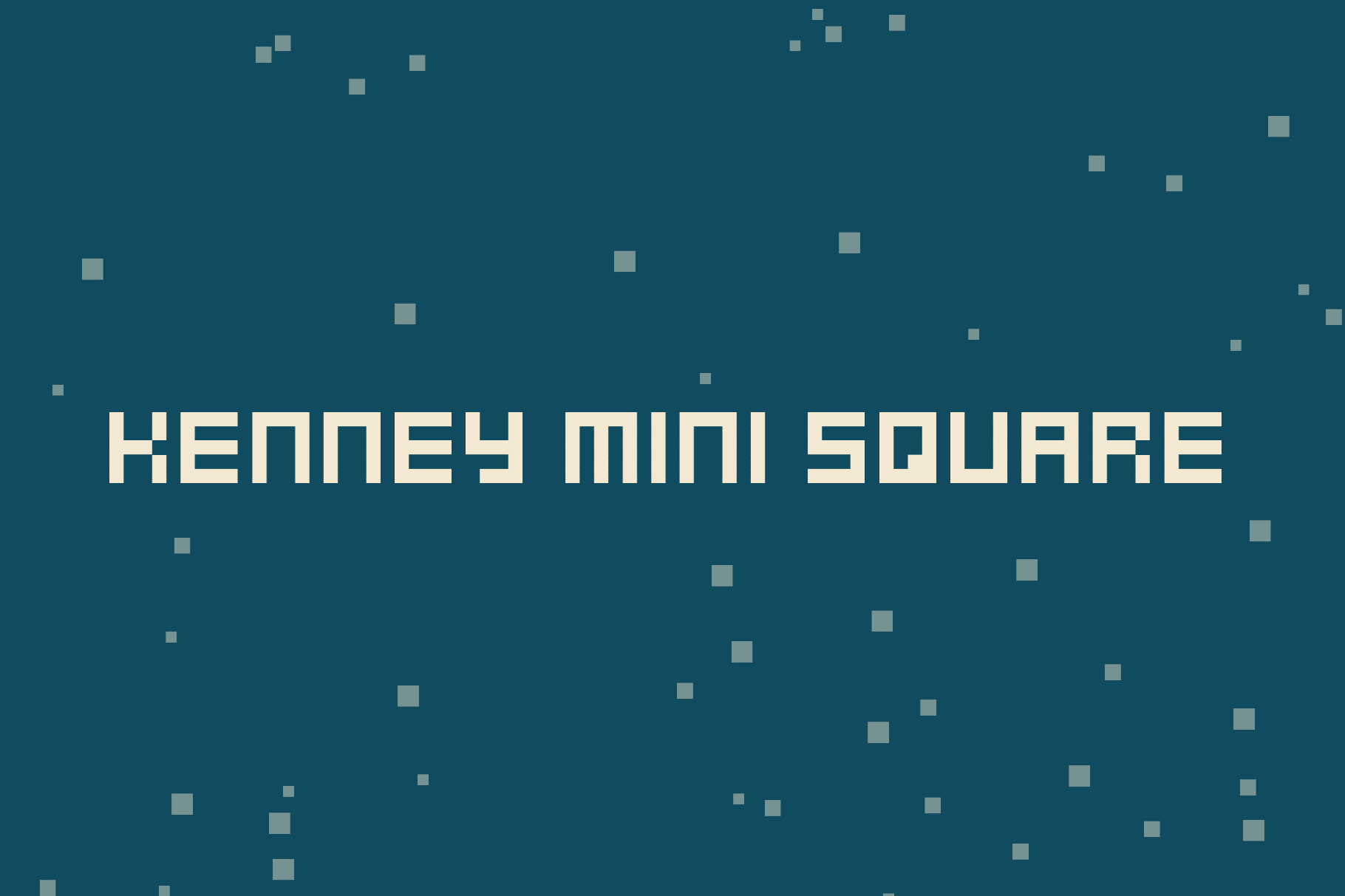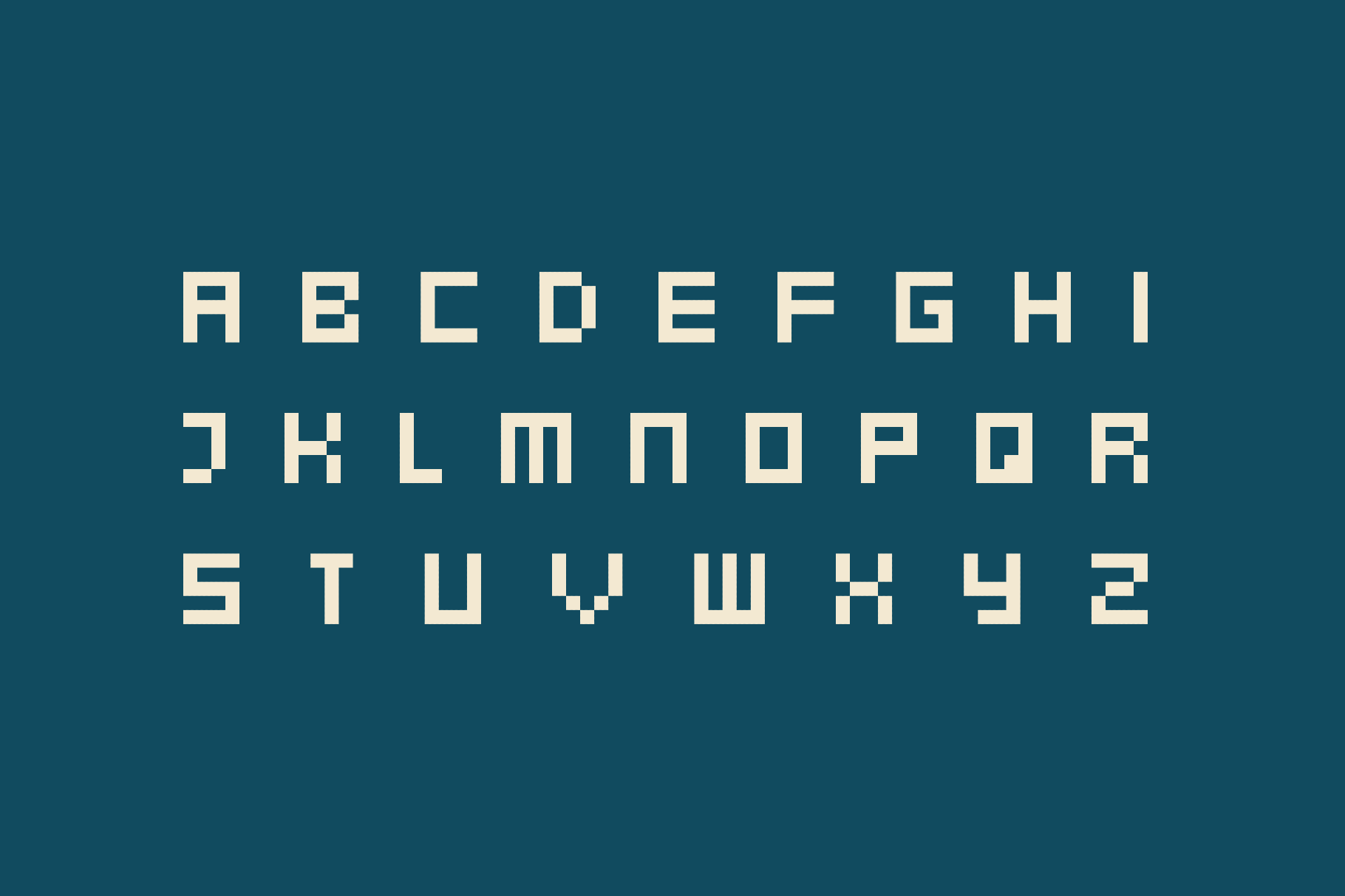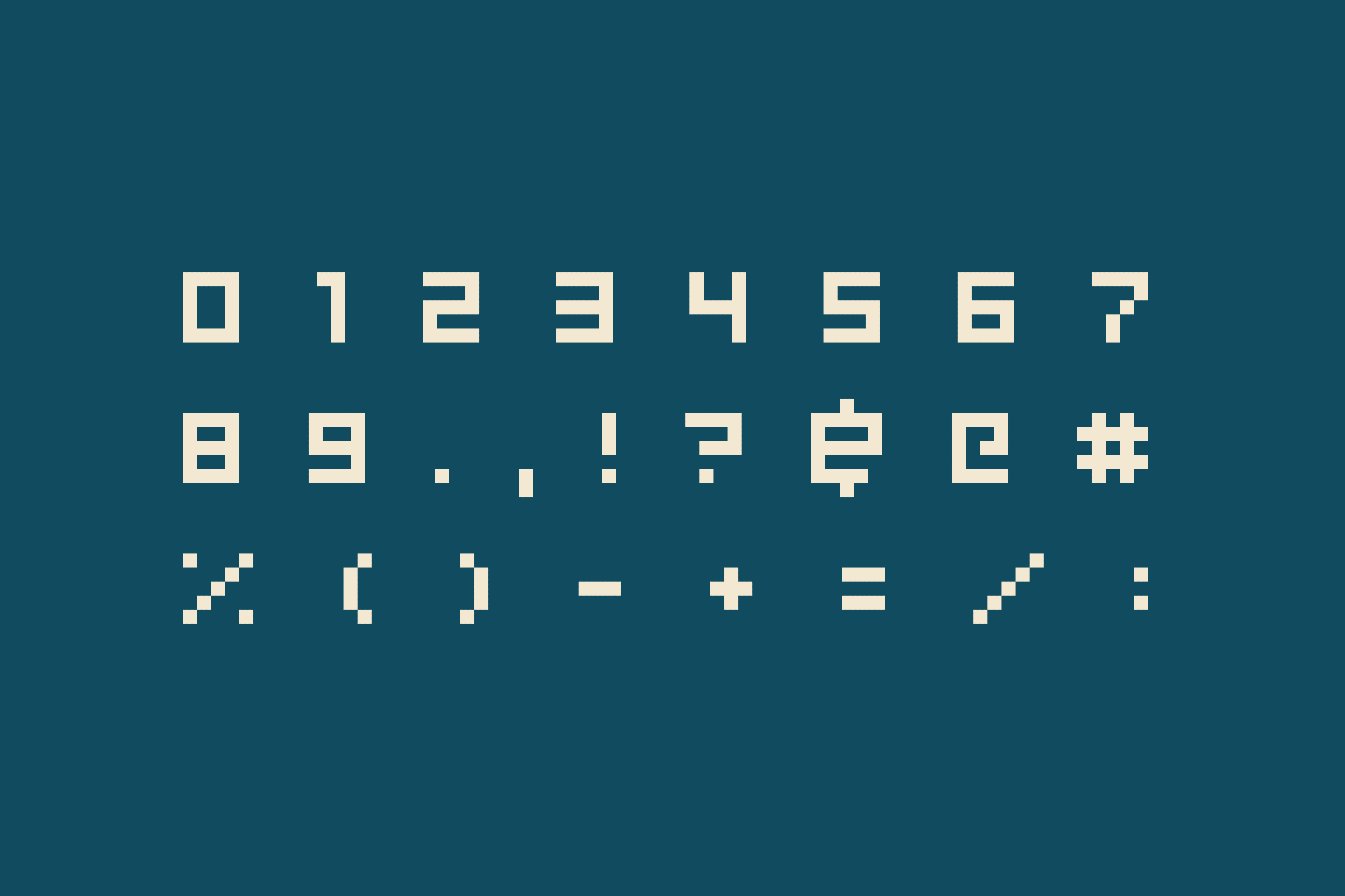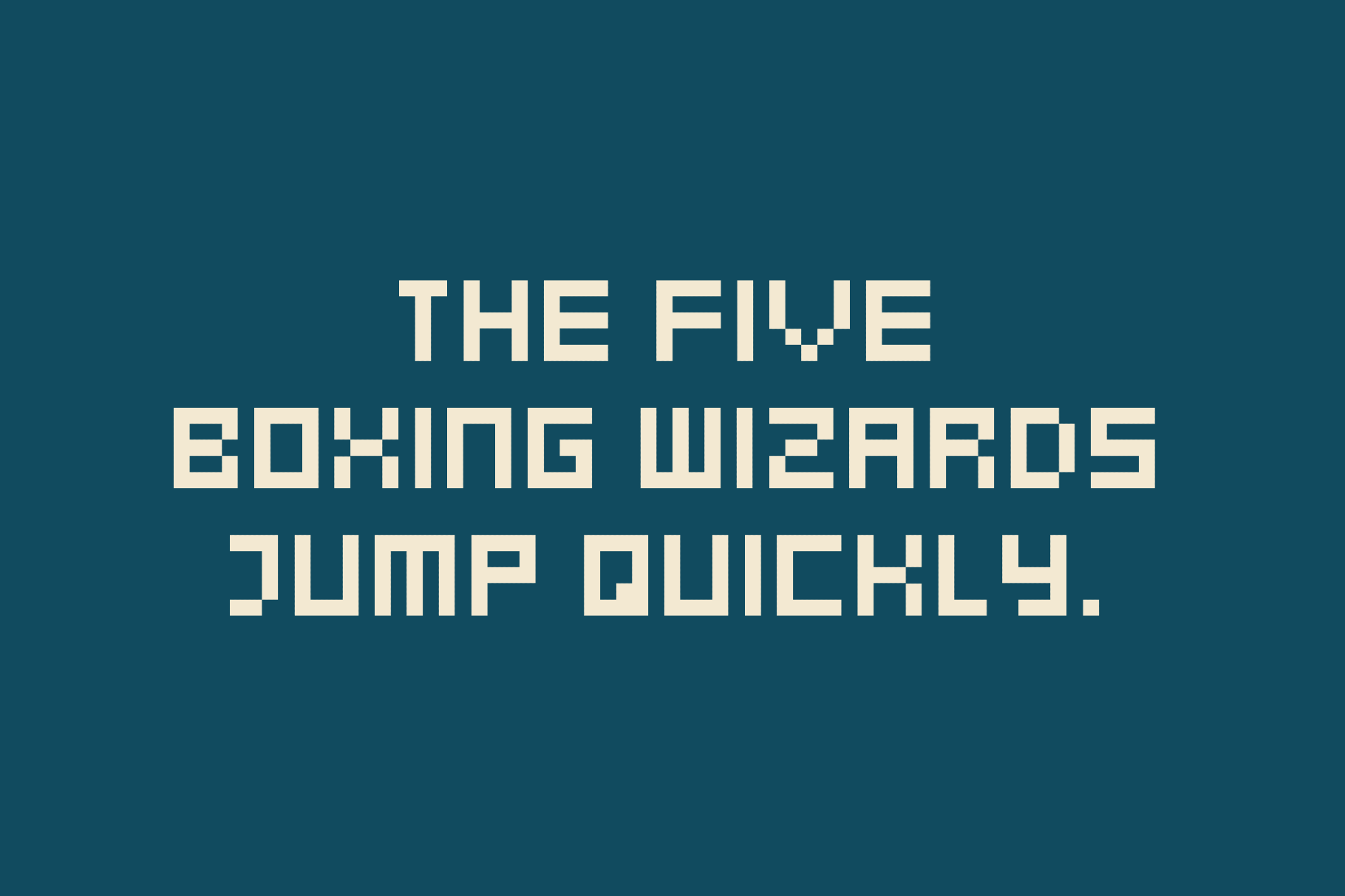
Kenney Mini Square Font Family
Kenney Mini Square is a pixel-perfect 90s font designed for game interfaces, built on the rigid grid logic of 1990s handheld console typography and the compressed character sets of early portable gaming screens. Its clear, compact letterforms preserve legibility at tiny sizes without sacrificing the chunky pixel character.
It works for game UI labels, retro game jam projects, pixel-art merchandise, chiptune album design, indie game credits, pixel mockup templates, and visual work.